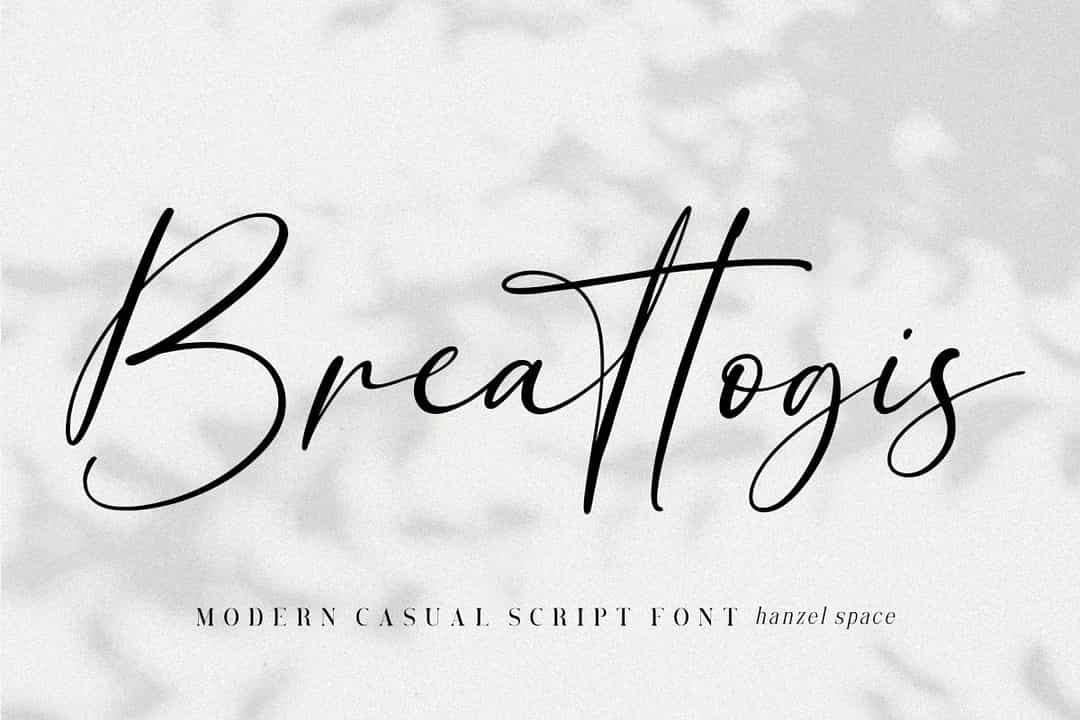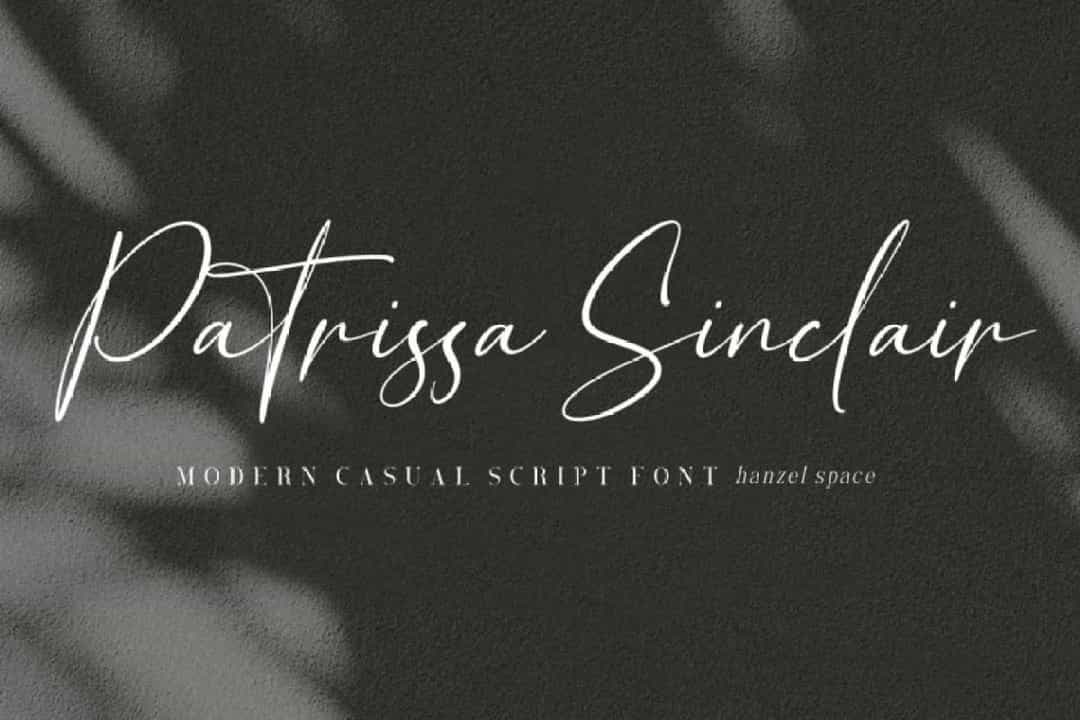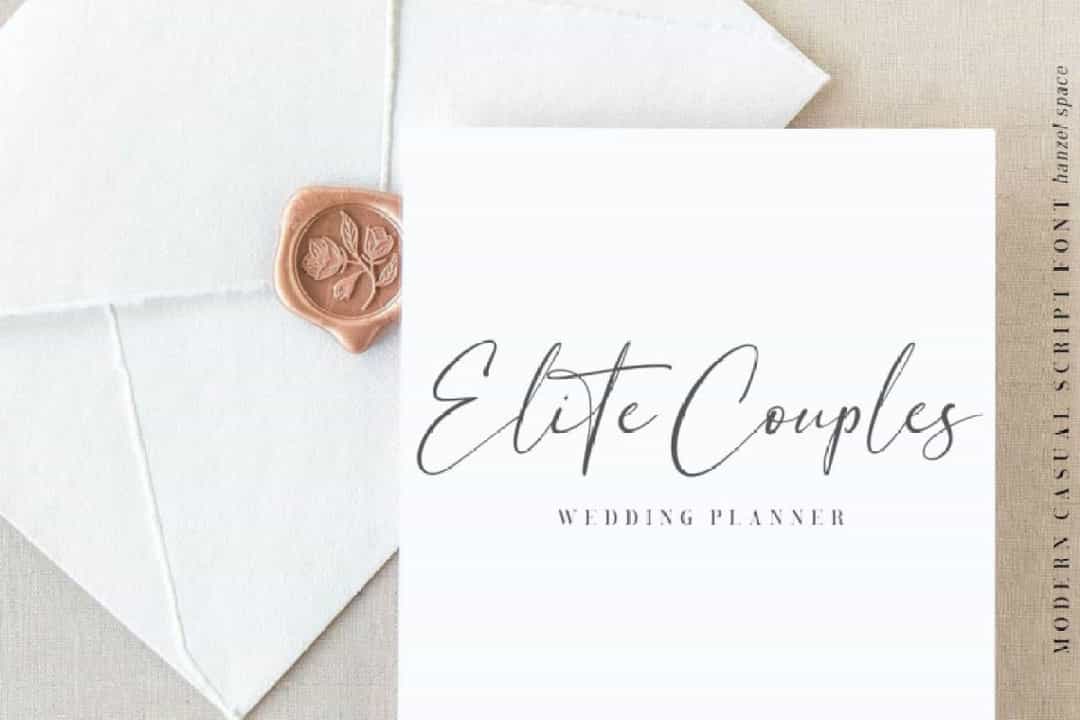
Breattogis modern Calligraphy Font is characterized by modern and elegant elements that will suit for wedding invitations, branding tags cards or logos and labels. Breattogis holds a beautiful set of all capital and small case numbers, alphabets, different symbols and ligatures to illustrate the art of calligraphy.